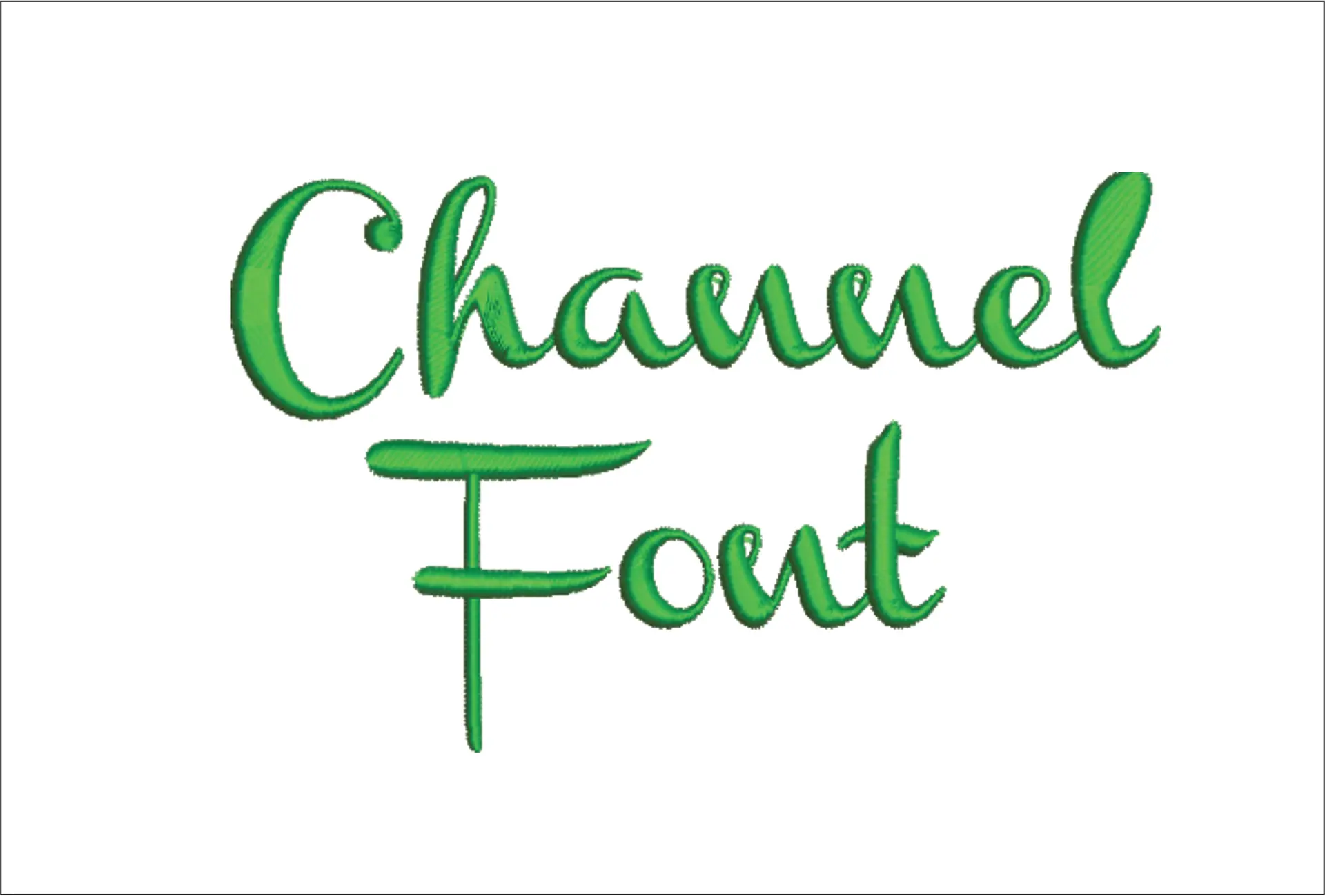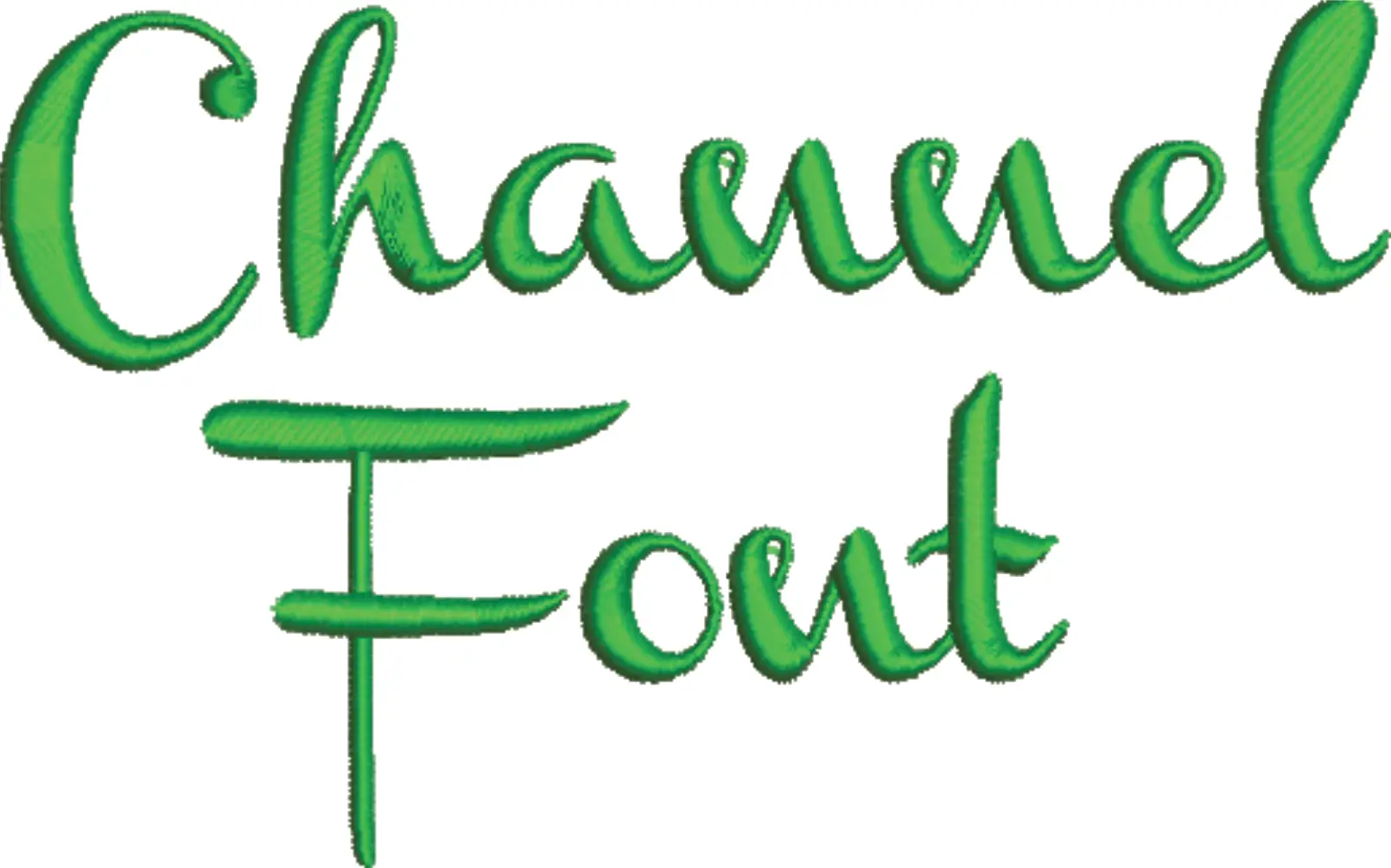
Chanel Embroidery Font Set - 1"  2"  3" 4" and 5" - Machine Embroidery Alphabet Font - instant download
A sleek cursive alphabet for adding polished, fashion-leaning names and initials to clothing, gifts and everyday accessories.
Add sleek script to your stitching with this Chanel Font embroidery alphabet, shown in a smooth modern cursive with a clean two-line sample that gives you a true feel for its look. It is a stylish choice for anyone who wants names, initials or short phrases to read softly rather than shout, with connected lettering that feels current and polished. If you like text that looks dressed-up without becoming fussy, this set has that balance.
It would sit especially well on sweatshirt chests, pyjama pockets, tote bags, zip pouches and the back of a denim jacket, where flowing script gives plain fabric a more finished feel. The letterforms suit stable fabrics best, letting the curves stay clear and legible on cotton, canvas and similar everyday materials. With multiple size options to work from, you can keep it discreet on smaller personal items or make it more of a feature across larger garments.